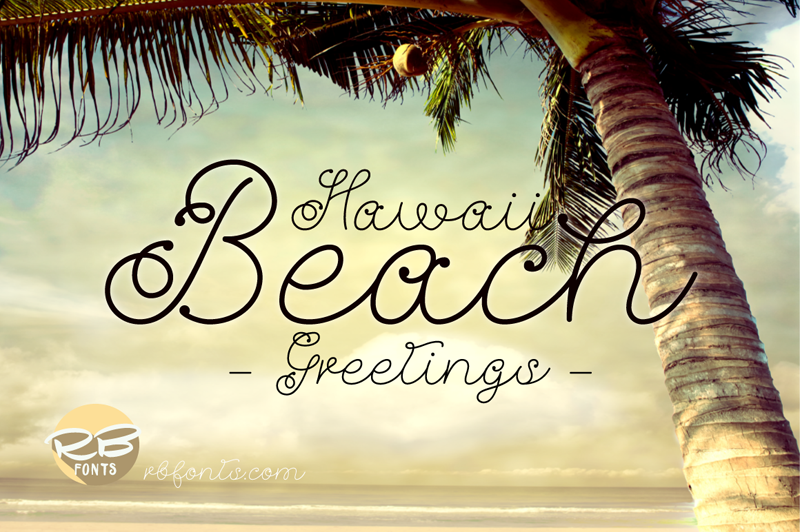
A handwritten, fully cursive monoline script, Hawaii Beach is great for all your creative projects with its curly, playful flow whether it be * logos, * printed quotes, * invitations, * cards, * Instagram posts. Happy creating and have fun! Fonts are provided in TTF & OTF formats. I recommend installing the TTF files, and the OTF only if necessary. There is no difference between these two unless for printing ttf is better. You may not - sell these fonts or claim them as your own. - edit or rename these fonts. - redistribute these fonts. http://rbfonts.com rbfonts@yahoo.com |